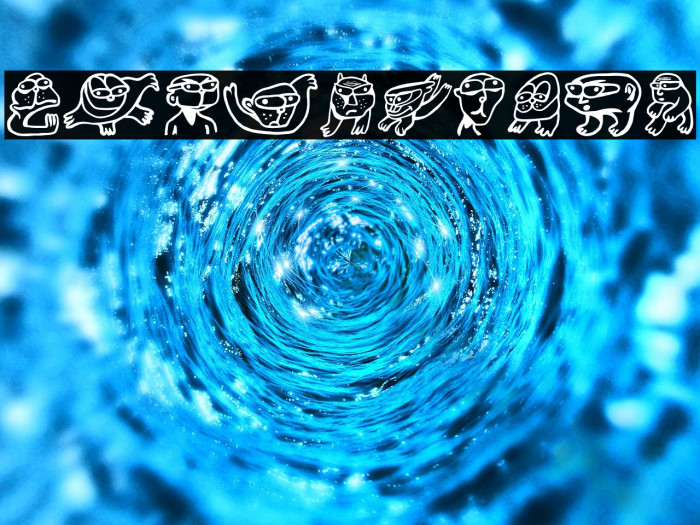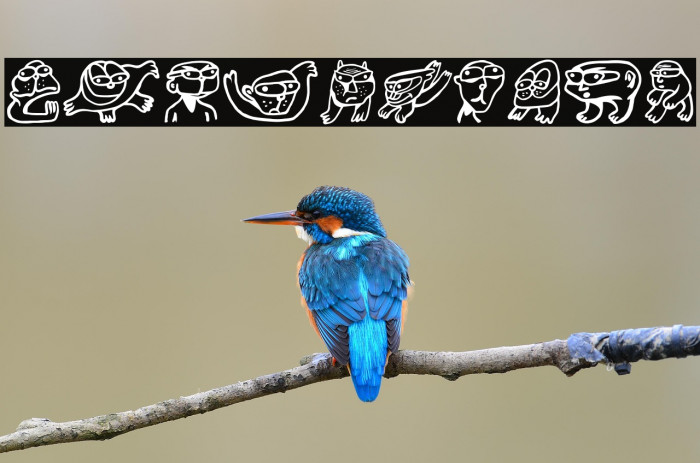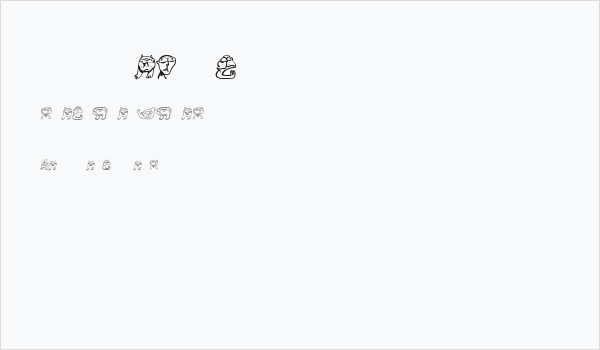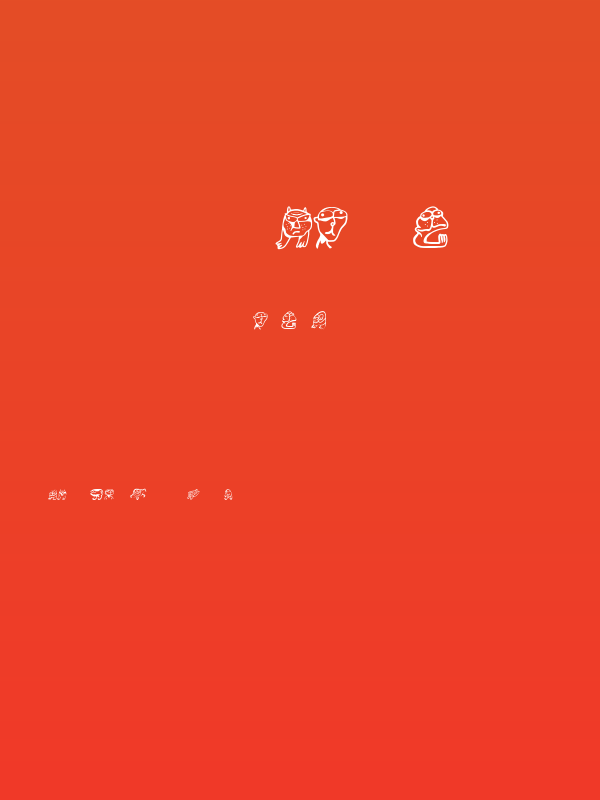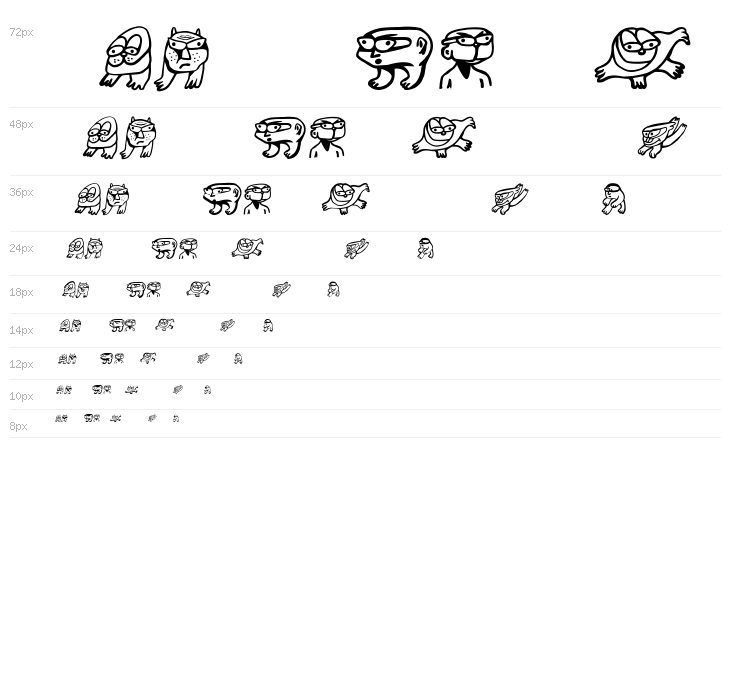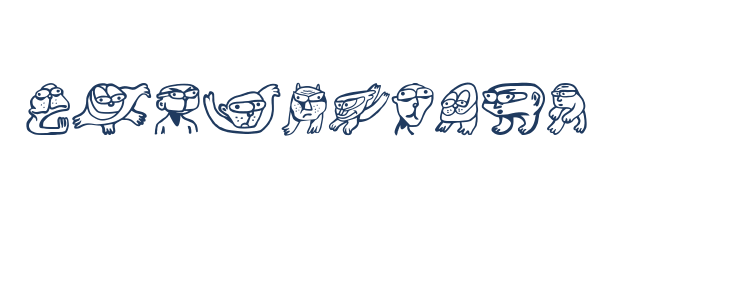
Otu Regular Font
Otu Regular Description
This font is a playful and whimsical collection of character illustrations, each representing a letter or symbol. The characters are cartoonish and expressive, featuring exaggerated facial expressions and dynamic poses. The style is hand-drawn with bold outlines and filled with minimal detail, giving it a lively and humorous appearance. The font is not suitable for traditional text but serves as a decorative element, ideal for projects that require a fun and informal touch.
| Overall Style | Whimsical, Playful |
| Use Case | Decorative elements, Illustrations |
| Proposed Projects | Ideal for children's books, comic strips, playful branding, and creative posters. |